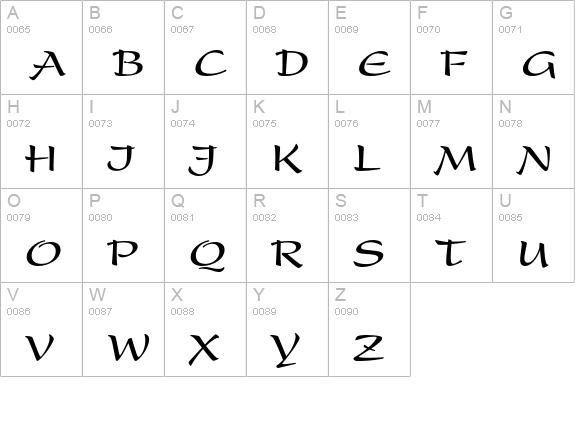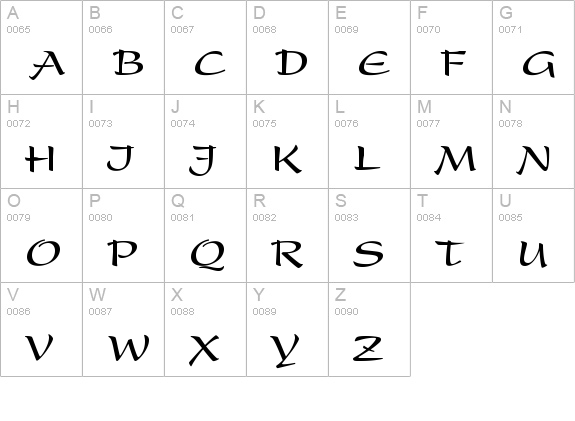
Present Bold is a strong, high-contrast variant in the Present typeface family \xE2\x80\x94 well suited to headlines, attention-grabbing titles, and strong calls-to-action.
Present Bold font is a versatile and eye-catching typeface that exudes confidence and sophistication. Its bold and modern design makes it perfect for headlines, titles, and branding materials. With its clean lines and strong presence, Present Bold is sure to make a statement in any design project. What's even better is that Present Bold font is available for free download at FontsMarket.com. This means you can easily access this stylish font and use it in your projects without any cost. Don't miss out on this fantastic opportunity to enhance your designs with the striking and impactful Present Bold font. Download it today and start creating stunning visuals that stand out from the crowd.